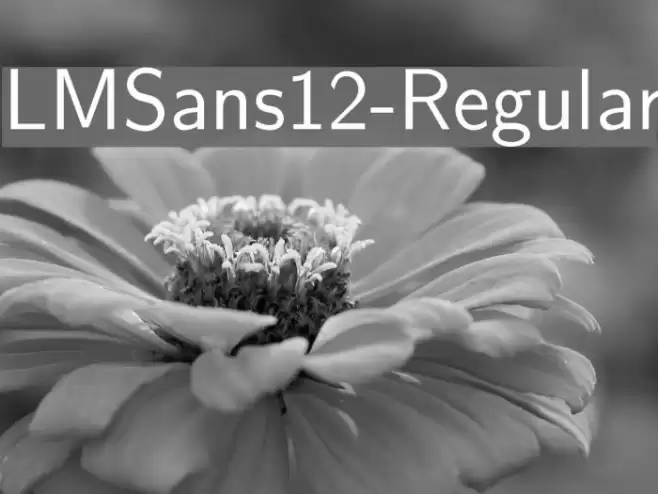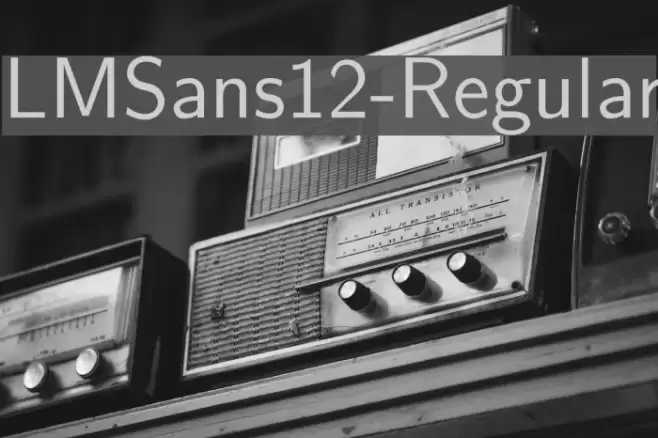
LMSans12-Regular Font
LMSans12-Regular Description
This typeface features a clean and modern sans-serif design, characterized by its simplicity and clarity. The letters are evenly spaced with a consistent stroke width, providing a balanced and harmonious appearance. The uppercase and lowercase letters are well-proportioned, making it highly legible at various sizes. The numerals and special characters maintain the same clean lines, ensuring uniformity across all text. This font is versatile, suitable for both digital and print media, and can be used effectively in a wide range of design projects.
A clean, modern sans-serif font with consistent stroke width and excellent legibility from Uncategorized fonts.